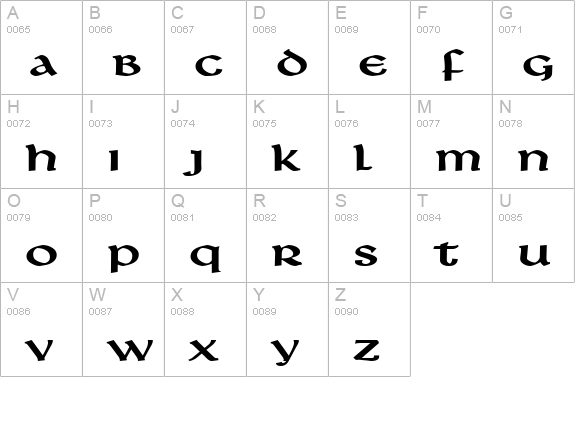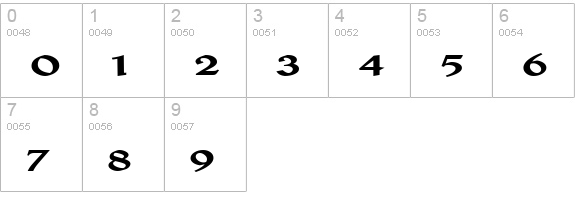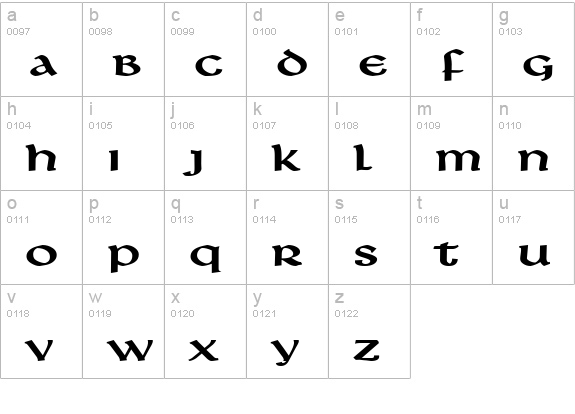
Leo Extended Bold is a strong, high-contrast, extended-width variant in the Leo typeface family \xE2\x80\x94 well suited to headlines, attention-grabbing titles, and strong calls-to-action.
Leo Extended Bold is a captivating and modern font that exudes confidence and strength. Designed with bold and sharp lines, this typeface is perfect for making a bold statement in any design project. Whether it's for a striking logo, eye-catching signage, or impactful headings, Leo Extended Bold will grab attention and leave a lasting impression. This font's extended proportions give it a unique and distinctive look, making it stand out from the crowd. With its generous letter spacing and strong presence, Leo Extended Bold ensures excellent readability, even in smaller sizes. Its bold weight adds an extra level of impact, making every word and character command attention. One of the greatest advantages of Leo Extended Bold is that it is freely available to download at FontsMarket.com. This means that you can easily access this powerful font and incorporate it into your designs without any hassle. Its availability for free allows you to explore its potential without any limitations, making it a valuable addition to your font library. Whether you're working on a professional project or a personal endeavor, Leo Extended Bold will help you make a bold and memorable impression. Its versatility, legibility, and modern aesthetics make it a reliable choice for a wide range of design applications. So, don't hesitate to grab this incredible font for free at FontsMarket.com and elevate your designs to new heights.